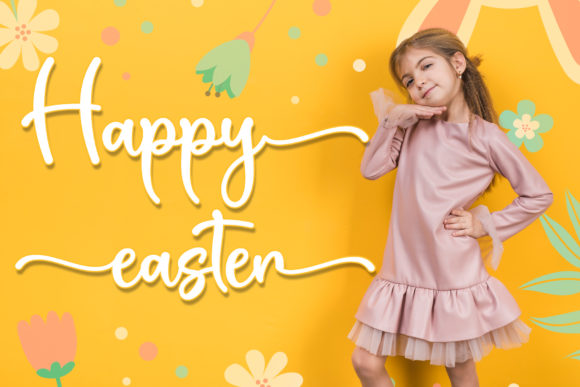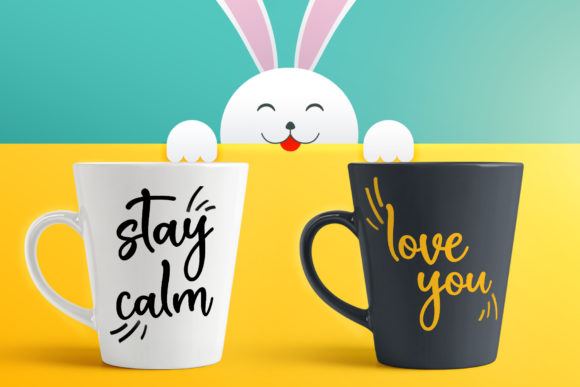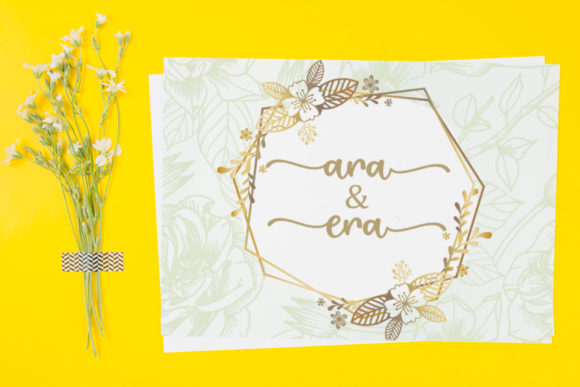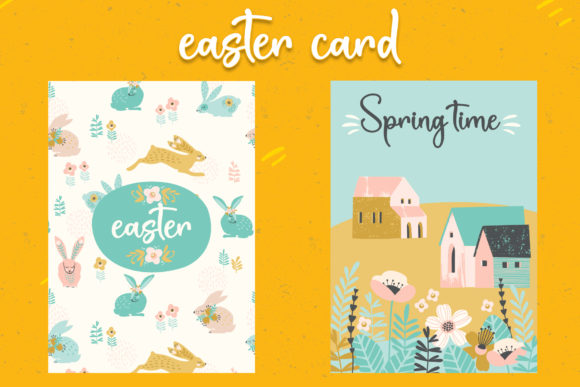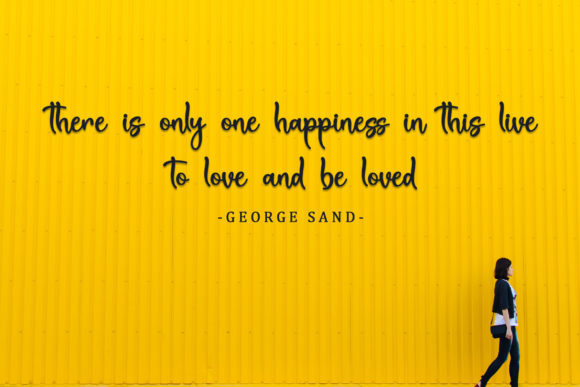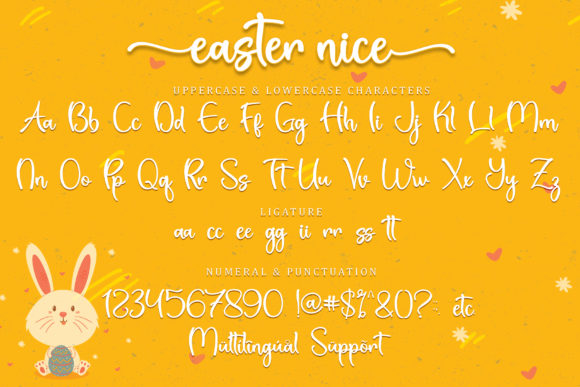
Easter Nice Font: A Sweet and Delicate Handwritten Font for Your Creative Projects
Are you a designer or crafter looking for a font that can add a touch of romance and elegance to your creative projects? Look no further than Easter Nice Font! This sweet and delicate handwritten font is perfect for writing wedding invitations, cards, or any other design that requires a personalized and joyful touch.
What Makes Easter Nice Font Special?
Easter Nice Font is a beautiful, dainty, and joyful font that is sure to capture the hearts of your audience. Its delicate and handwritten style makes it ideal for creating romantic and whimsical designs that will leave a lasting impression. Whether you’re designing wedding invitations, greeting cards, or other paper crafts, Easter Nice Font is the perfect choice.
Key Features of Easter Nice Font
- Handwritten Style: Easter Nice Font has a beautiful, handwritten style that is both elegant and playful.
- PUA Encoded: This font is PUA encoded, which means you can access all of the glyphs and swashes with ease.
- Dainty and Joyful: The font’s delicate and joyful style makes it perfect for creating romantic and whimsical designs.
- Romantic and Personalized: Easter Nice Font is ideal for creating designs that require a romantic and personalized touch.
Uses of Easter Nice Font
Easter Nice Font is a versatile font that can be used for a variety of creative projects, including:
- Wedding Invitations: Create beautiful and elegant wedding invitations that will set the tone for the big day.
- Greeting Cards: Design personalized greeting cards for special occasions, such as birthdays, anniversaries, and holidays.
- Paper Crafts: Use Easter Nice Font to create beautiful paper crafts, such as scrapbook pages, journal entries, and card making projects.
- Digital Designs: Use the font to create digital designs, such as social media graphics, blog posts, and website headers.
Why Designers and Crafters Love Easter Nice Font
Designers and crafters love Easter Nice Font for many reasons, including:
- Ease of Use: The font is easy to use and can be accessed with ease, thanks to its PUA encoding.
- Versatility: Easter Nice Font can be used for a variety of creative projects, making it a great addition to any design or crafting arsenal.
- Unique Style: The font’s delicate and handwritten style makes it stand out from other fonts, adding a touch of elegance and sophistication to any design.
Tips for Using Easter Nice Font
Here are some tips for using Easter Nice Font in your creative projects:
- Pair with Other Fonts: Pair Easter Nice Font with other fonts to create a unique and interesting design.
- Use Swashes and Glyphs: Use the font’s swashes and glyphs to add a touch of elegance and sophistication to your design.
Easter Nice Font is a beautiful and delicate handwritten font that is perfect for designers and crafters looking to add a touch of romance and elegance to their creative projects. With its PUA encoding, dainty and joyful style, and versatility, this font is sure to become a favorite in your design or crafting arsenal. So why wait? Download Easter Nice Font today and start creating beautiful and elegant designs that will leave a lasting impression!